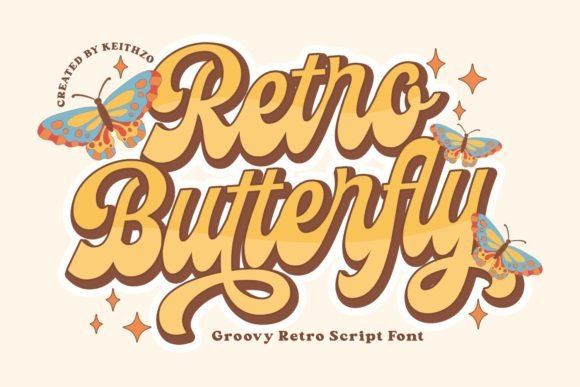
Introducing Retro Butterfly Font, the ultimate choice for those who crave a touch of nostalgia and a splash of vibrancy in their designs. This groovy retro script font is here to transport you back to the era of funky tunes and free-spirited vibes.
Created by the talented Keithzo from 7NTypes, Retro Butterfly Font is a true masterpiece that embodies the essence of retro script fonts. Its bold and flowing strokes, combined with exaggerated curves, instantly transport you to the world of vintage psychedelic posters and album covers.
What sets Retro Butterfly Font apart is its fluid and expressive letters, each adorned with unique flourishes and stylistic elements. It's as if the letters themselves dance across the page, exuding a playful and energetic vibe that is simply irresistible.
Whether you're working on a retro-themed design, crafting party invitations, designing music album covers, or simply seeking to infuse your creative work with a groovy and vibrant atmosphere, Retro Butterfly Font is your perfect companion. It effortlessly adds a touch of whimsy and personality to any text, capturing the carefree and bold spirit of the era it represents.
But why settle for ordinary when you can embrace the extraordinary? Retro Butterfly Font is not just a font, it's an experience. It's a journey back in time, a celebration of individuality, and a statement of creativity.
Imagine the impact this font will have on your projects. With Retro Butterfly Font, your words will come alive, pulsating with an energy that captivates and mesmerizes. Your designs will transcend the ordinary, leaving a lasting impression on anyone who lays eyes on them.